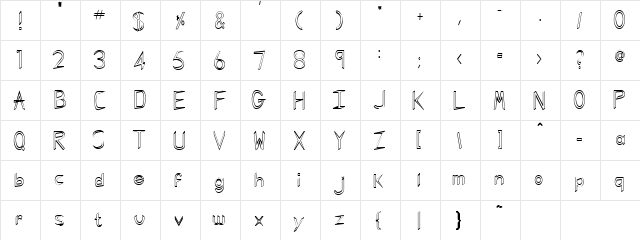
Gregorian-Hollow Normal
Design Context for Gregorian-Hollow Typeface
Gregorian-Hollow offers clean, dependable letterforms without strong stylistic allegiance, making it a practical choice for designers who need flexibility.
Pro Tip: Use Gregorian-Hollow in both headline and body roles to test its range before committing to a single application.